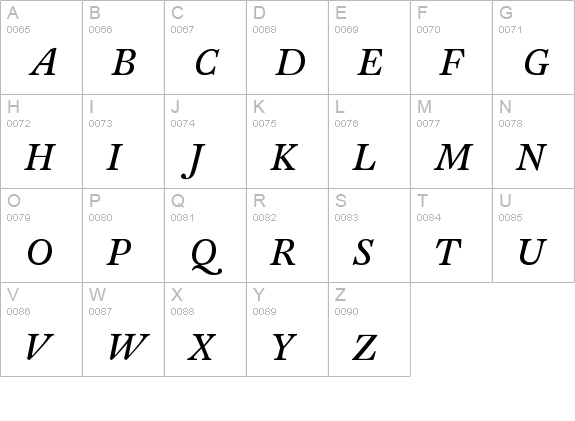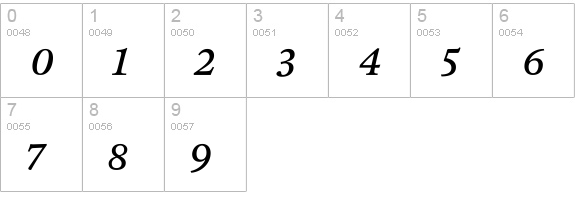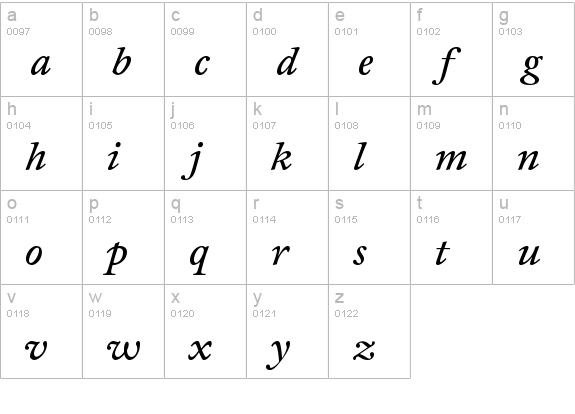
CliffordSix-ItalicAltLF Font Details
CliffordSix-ItalicAltLF font is a sleek and modern typeface that exudes elegance and sophistication. Its italicized design adds a touch of flair, making it perfect for projects that require a touch of style. The unique alternates and ligatures of this font give your text a distinctive look that sets it apart from the rest. Best of all, CliffordSix-ItalicAltLF font is completely free to download at FontsMarket.com, making it accessible to everyone looking to elevate their designs with a touch of class. Whether you're working on a professional project or simply want to add a touch of elegance to your personal creations, this font is sure to impress. Download CliffordSix-ItalicAltLF today and see the difference it can make in your designs!